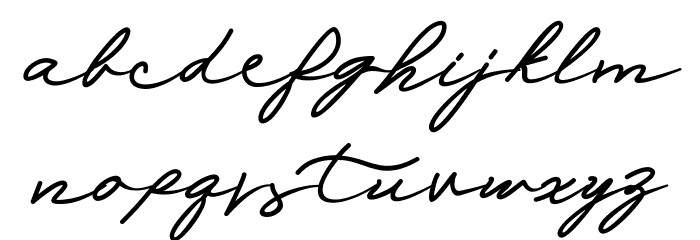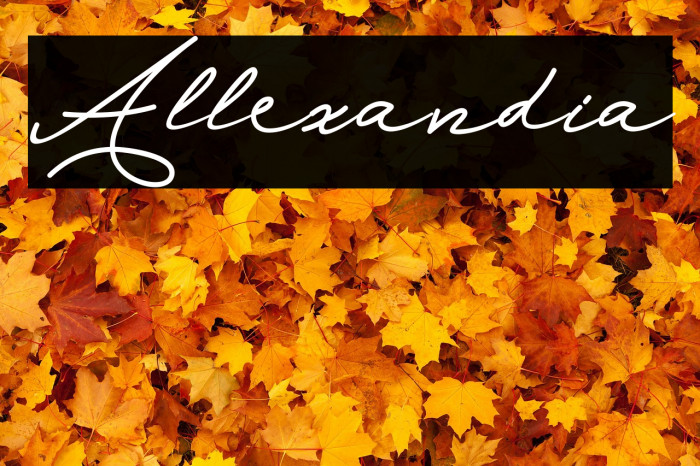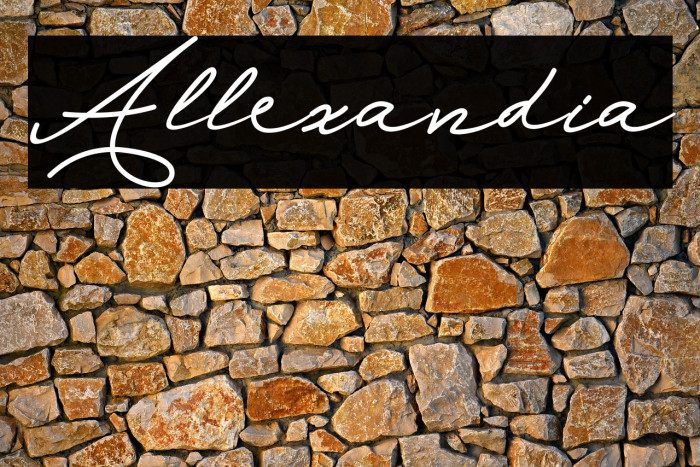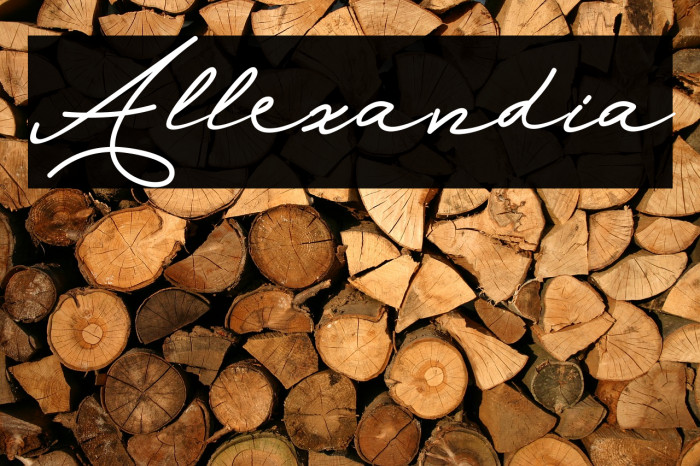
Allexandia Font
This elegant script font features a flowing, cursive style with graceful loops and swashes. The uppercase letters are ornate, with intricate details that give them a sophisticated appearance. The lowercase letters maintain a smooth, connected flow, making them ideal for creating a seamless handwritten look. The numerals are styled to match the overall cursive theme, adding a touch of elegance to any numerical display. This font is perfect for projects that require a personal, artistic touch, such as invitations, greeting cards, or branding materials. Its refined and stylish appearance makes it suitable for both formal and creative applications.
An elegant script font with flowing, cursive letters and ornate uppercase characters.
- Proposed Projects: Ideal for wedding invitations, greeting cards, branding, and artistic projects requiring a personal touch.
- Category: Script
- Overall Style: Elegant
- Use Case: Headlines, Invitations, Branding